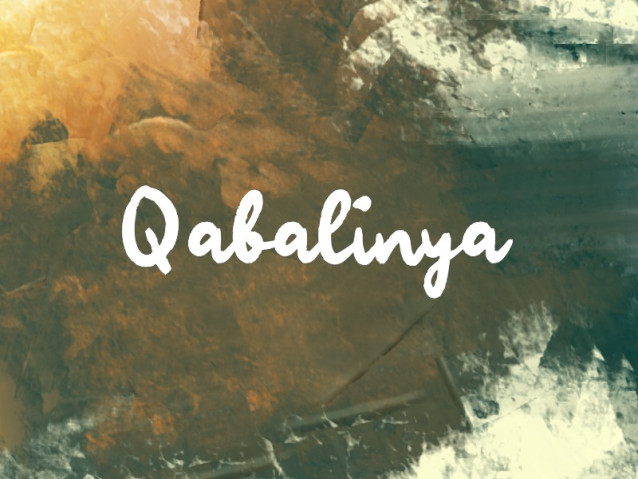
Qabalinya Font
Qabalinya Font is a simple and friendly handwritten font. Its natural and unique style makes it incredibly fitting to a large pool of designs. The only limit is your imagination!